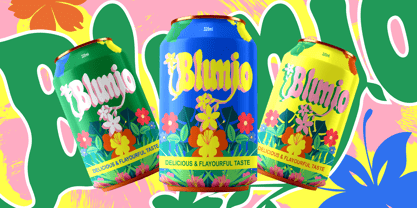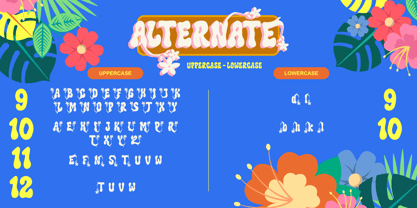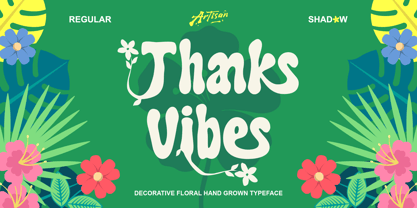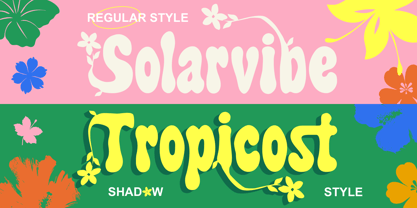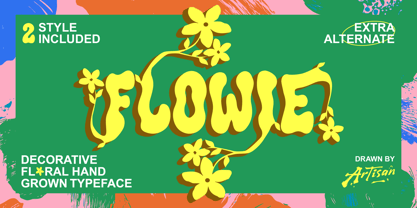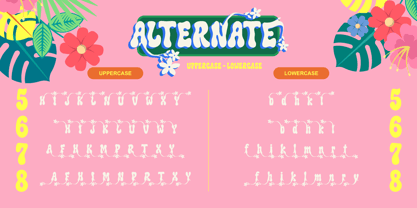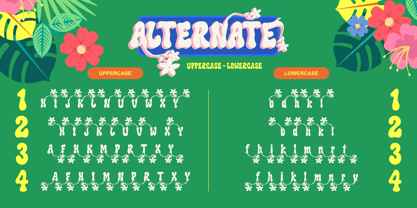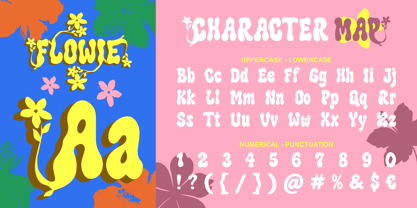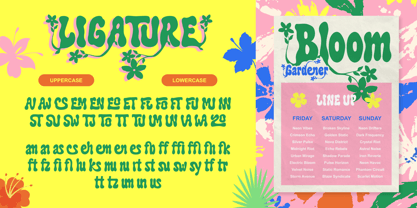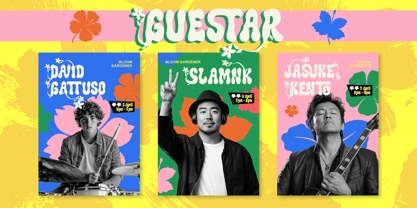
Flowie
by Artisan Themes
The Flowie Font Family was designed by Meidy Meichico and published by Artisan Themes. Flowie contains 2 styles and family package options. More about this family
Say hello to Flowie, a playful and charming decorative font inspired by blooming flowers and hand-drawn lettering. With its soft curves, organic shapes, and cute floral details, Flowie brings a fresh, joyful, and tropical vibe to your designs. This font is perfect for creating eye-catching designs that feel fun, friendly, and full of personality. Whether you're working on posters, branding, packaging, or social media content, Flowie will instantly make your work stand out. Flowie comes with 2 styles (Regular & Shadow) plus extra alternates that allow you to mix and match for a more natural and dynamic look. The floral elements are beautifully integrated into the letters, giving your typography a unique handcrafted feel. Perfect for: poster & music festival design, branding & logo projects, packaging (especially food & baverage, summer, tropical themes), social media graphics, kids & playful design, quotes, stickers, and merchandise.
Designers: Meidy Meichico
Foundry: Artisan Themes